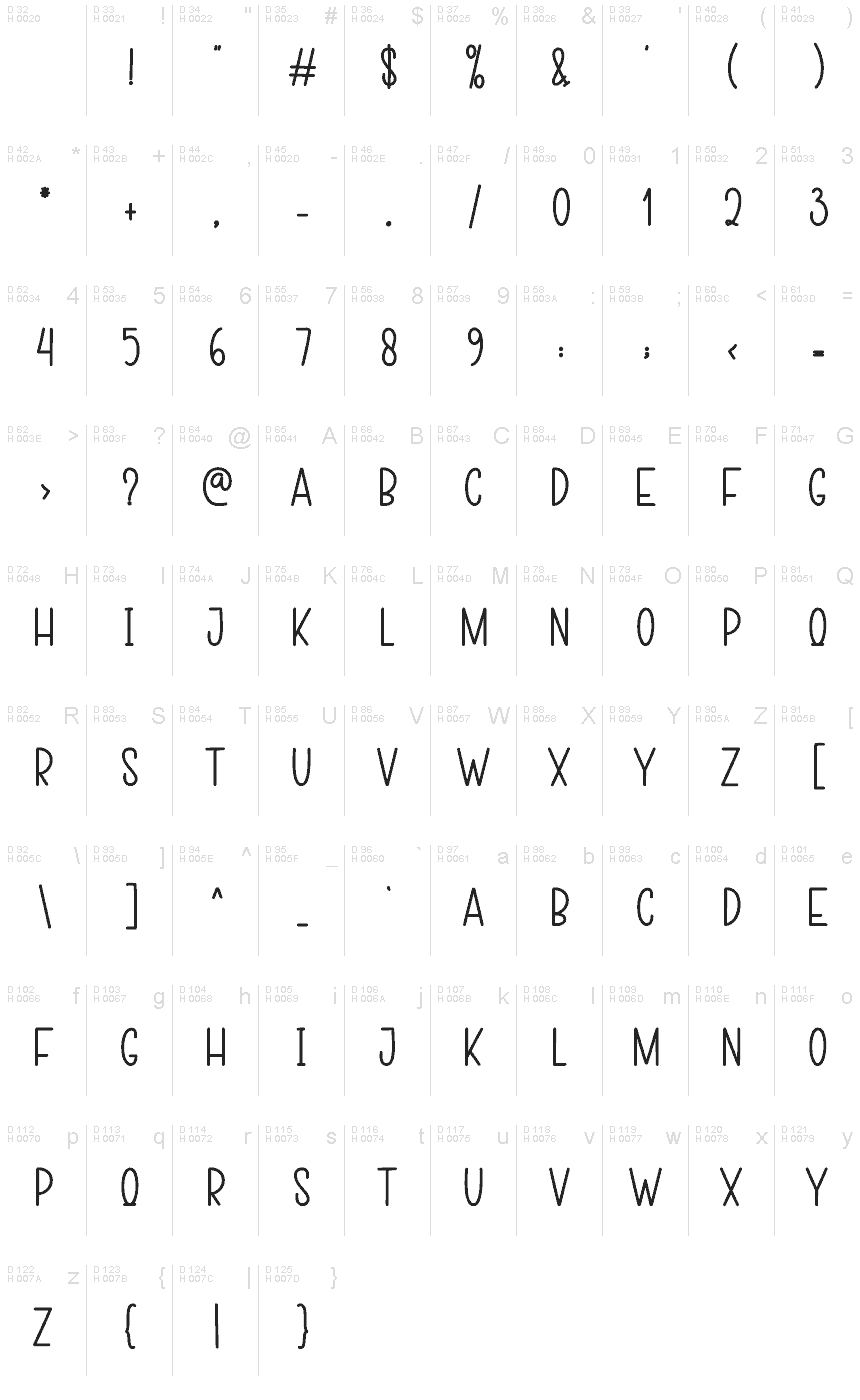
Stick Market
Stick Market font by Andi Moz is a handwritten font with a hand-drawn appearance and informal vibes. With condensed letters, its unique advantage lies in saving space while delivering all of its quirky and humanistic beauty. Imagined imperfections add an artistic touch to the characters with spontaneous lines that break away from the modern digital age style.
This free handwritten font is ideal for customized headers, short paragraphs, blog posts, and social media feeds. Publications like books, magazines, brochures, newspapers or posters can accommodate unique word-focused modern designs via Stick Market easily. Each letter can add personality to slogans on products as well as packaging and wrapping papers of any item imaginable!